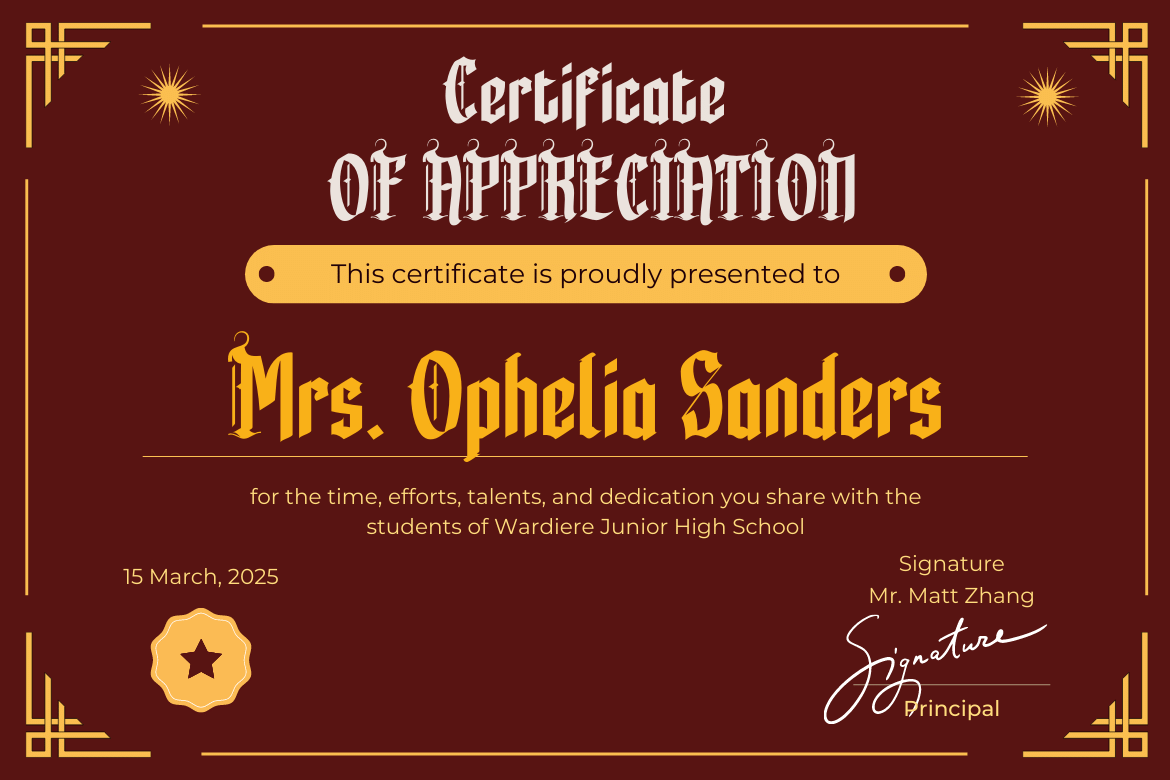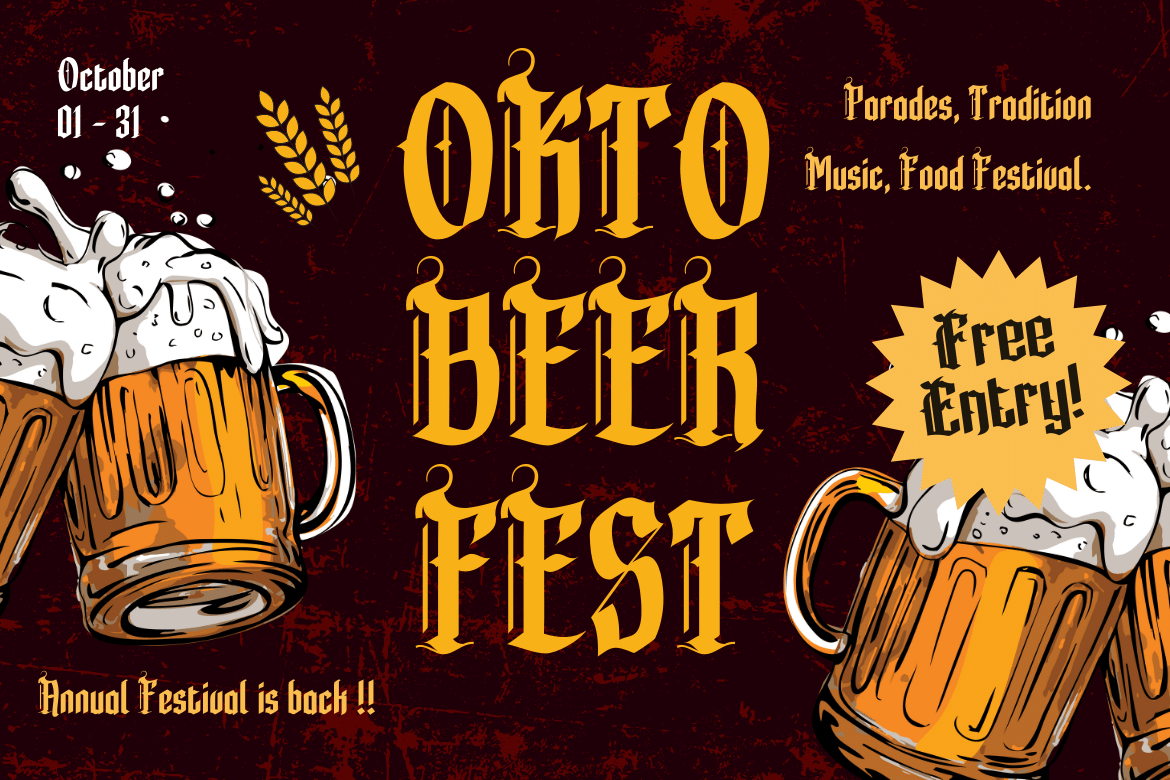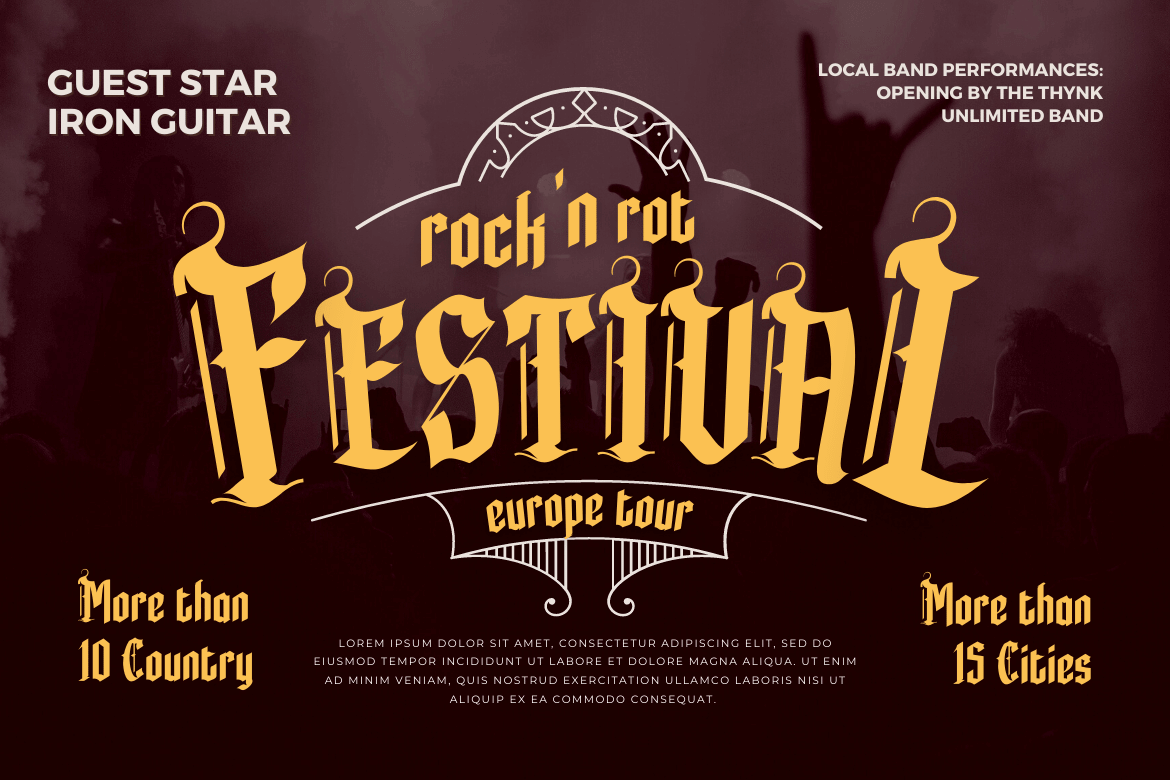
Rengkox Font
Rengkox Display Font
This font can be used in a variety of projects to create a vintage and elegant style. Use to elevate visual projects, titles, or banners, packaging with a bold, classic look that exudes style, elegance, and strong personality.